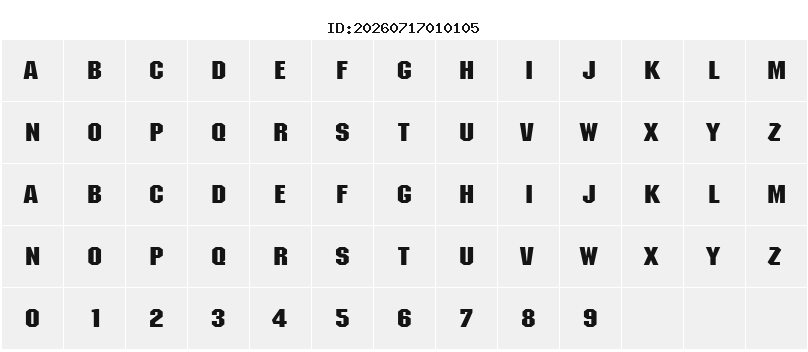
• Font Name: ATROX
About ATROX.ttf
ATROX.ttf is a modern, elegant sans-serif font designed for ultimate readability and visual harmony. Perfect for branding, headlines, web design, and print materials.